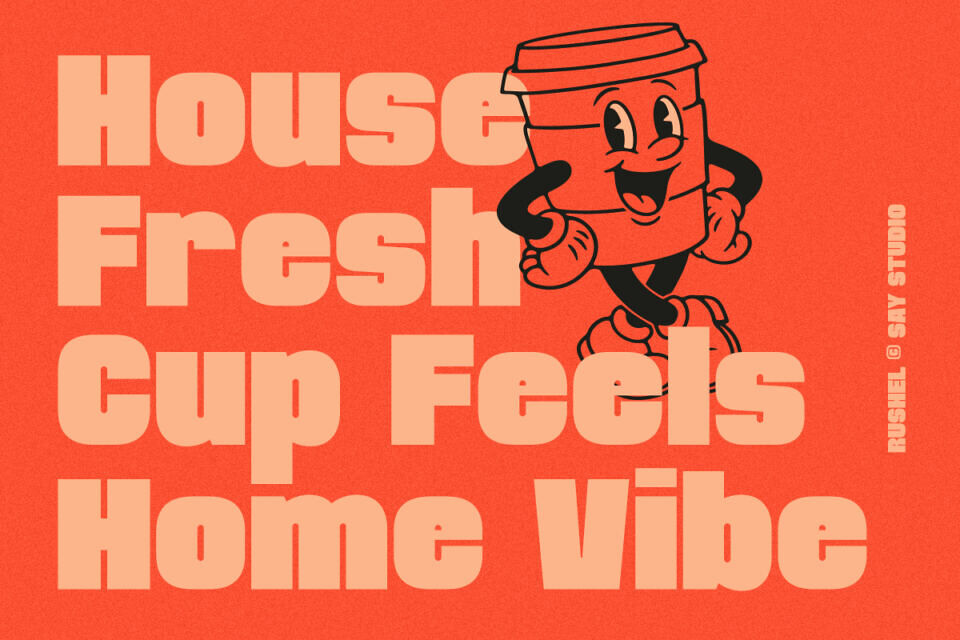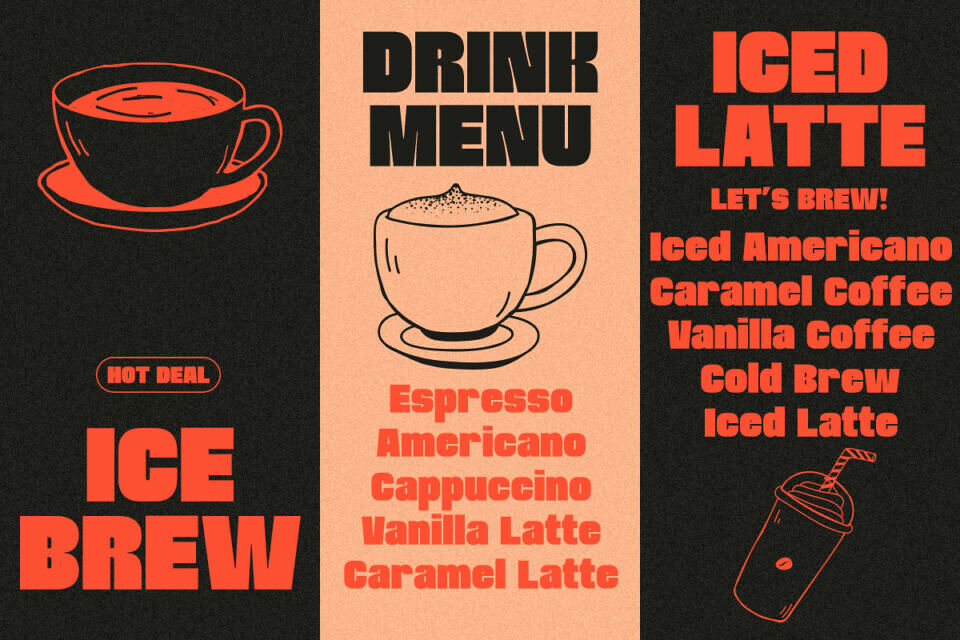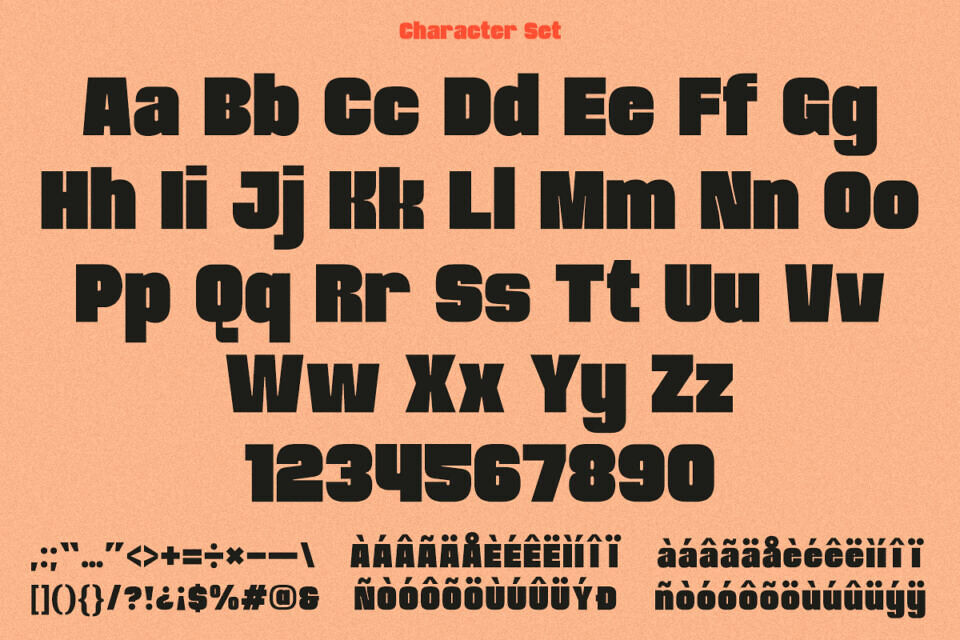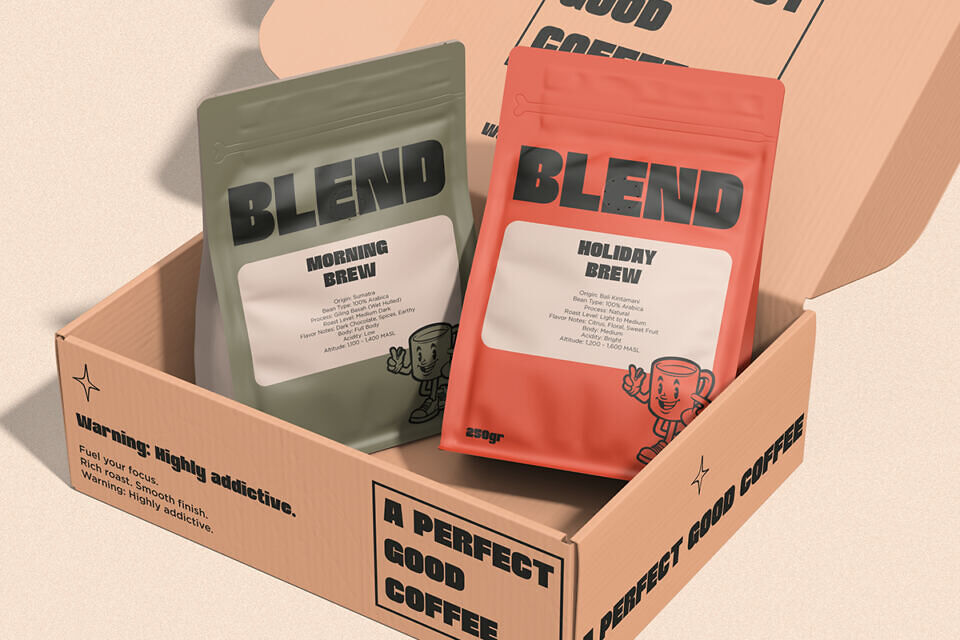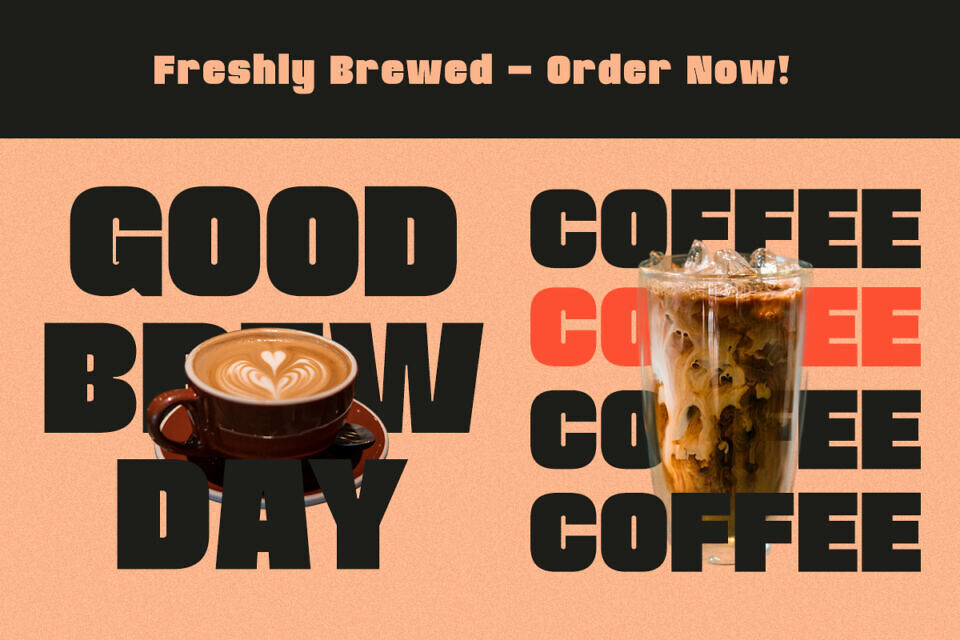
Rushel Font
Rushel is a modern bold sans serif font crafted for strong visual impact and contemporary branding. With its solid structure and confident proportions, it delivers a clean yet powerful presence that instantly grabs attention. The bold weight and smooth curves create a perfect balance between strength and readability, making it highly versatile across design applications.